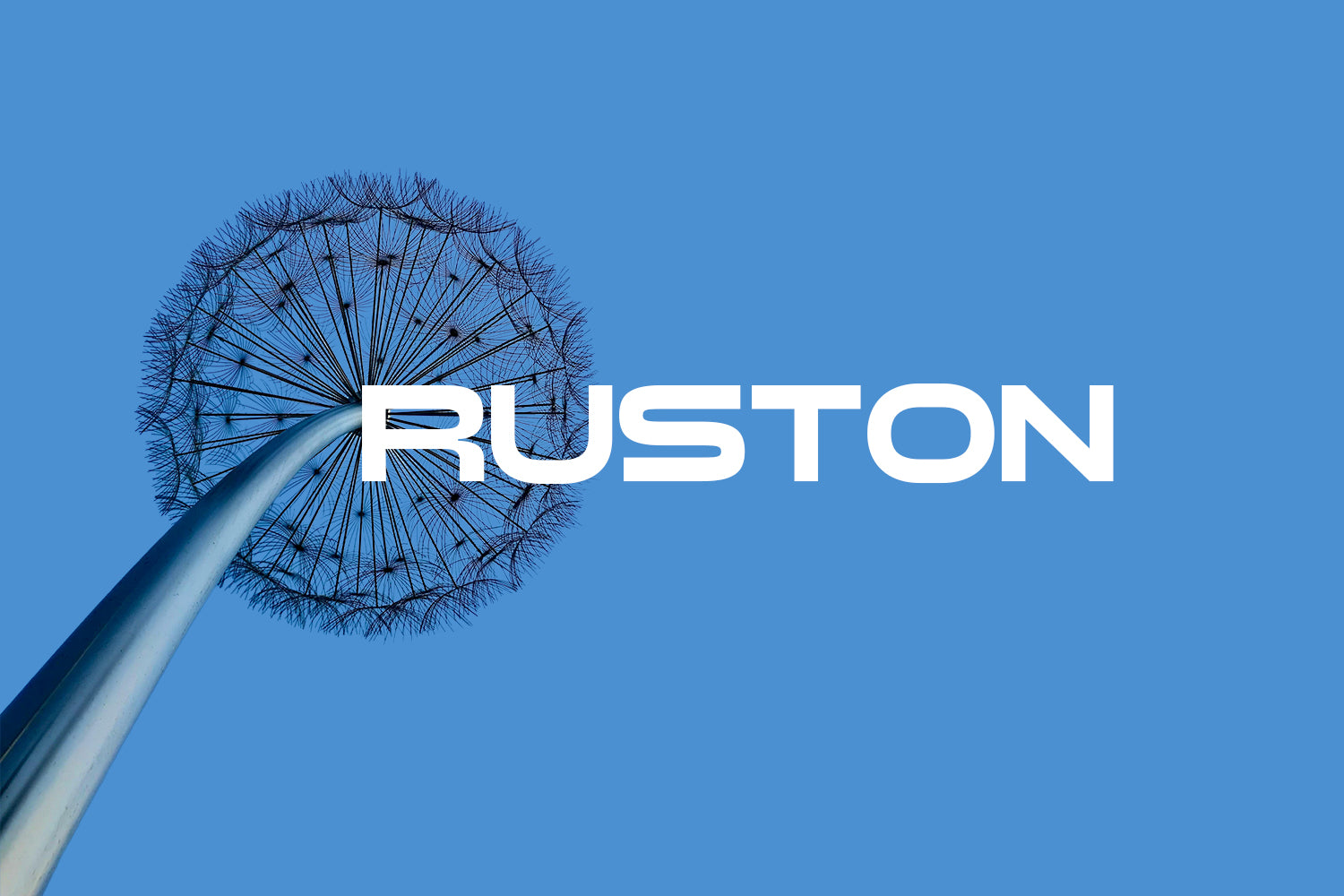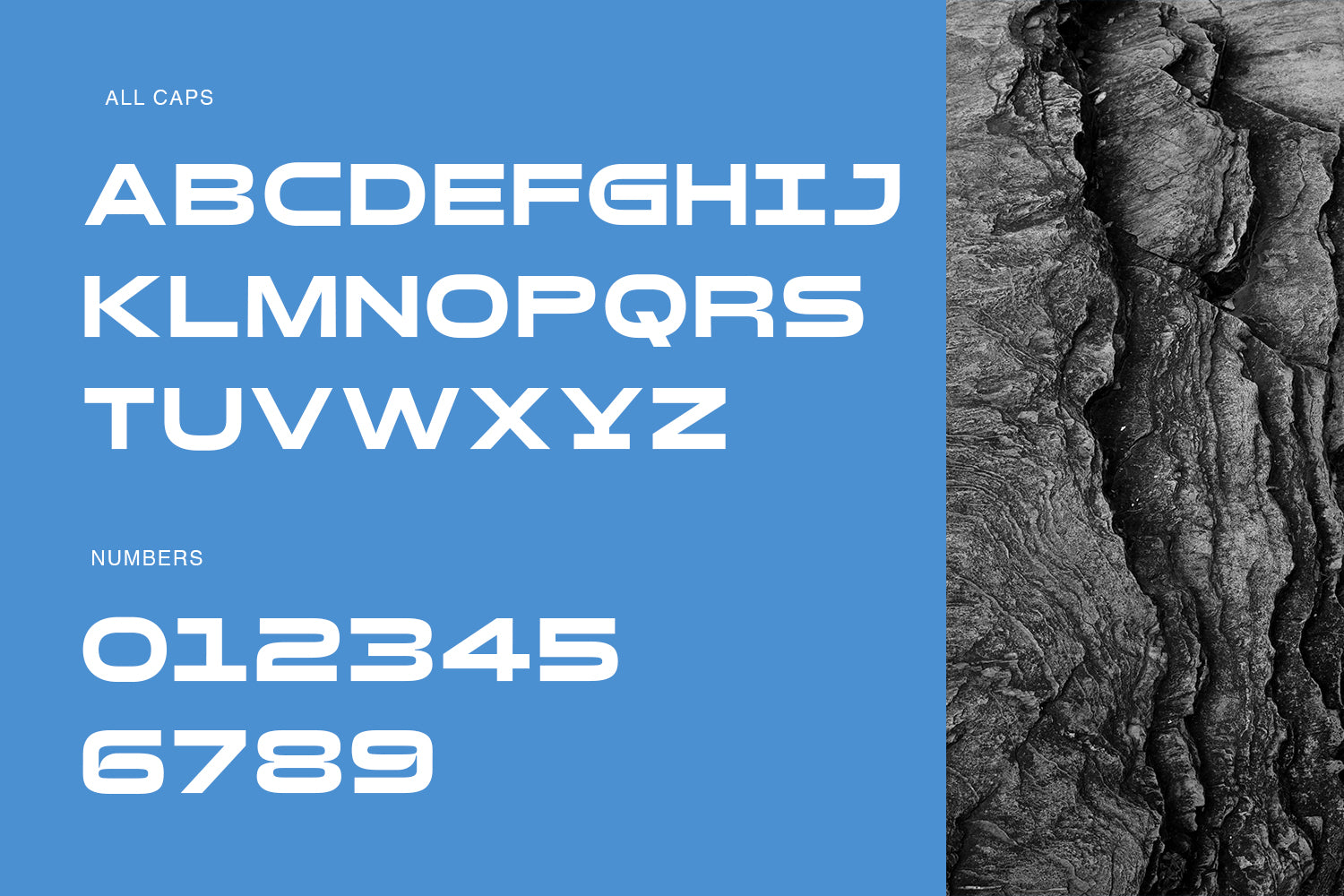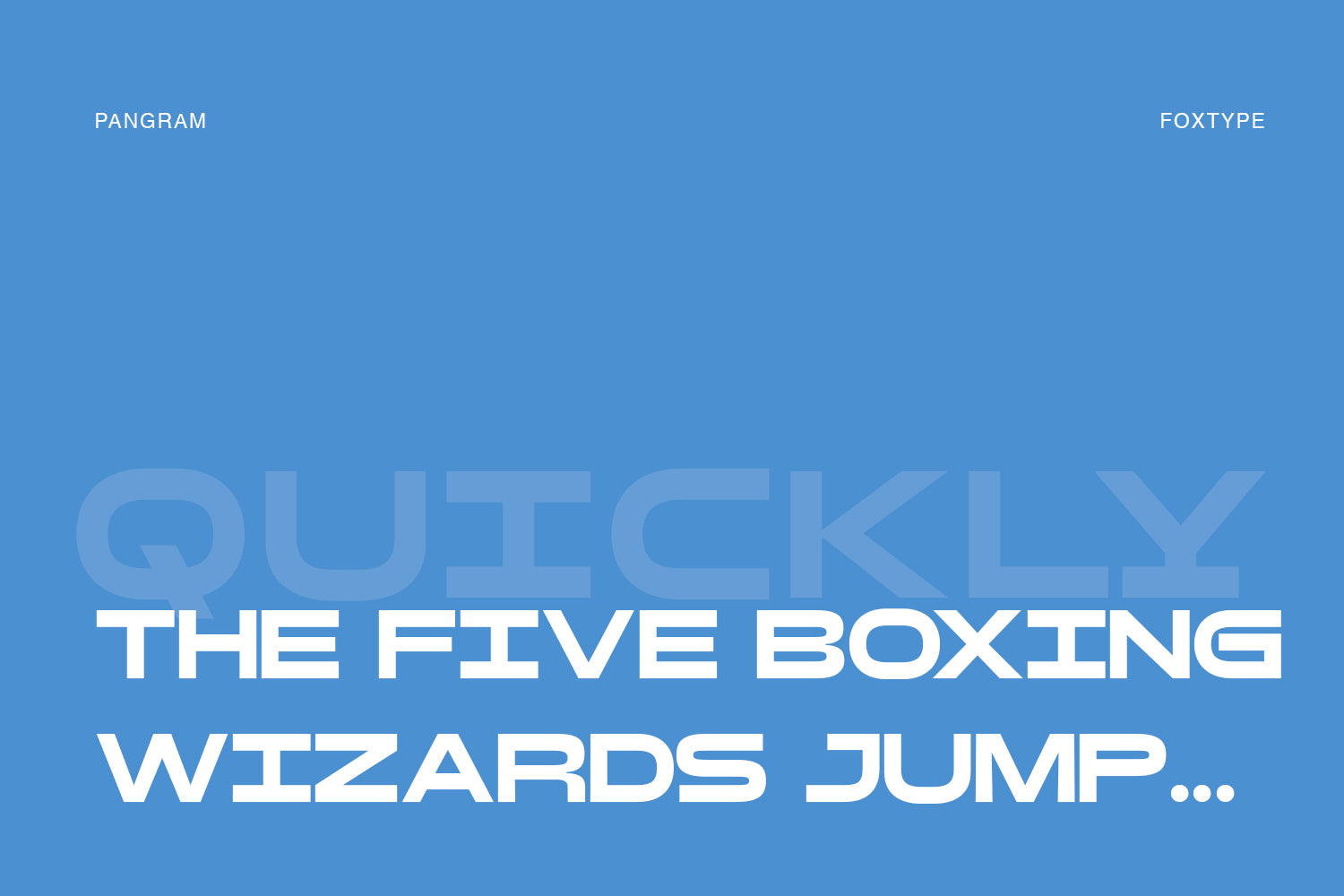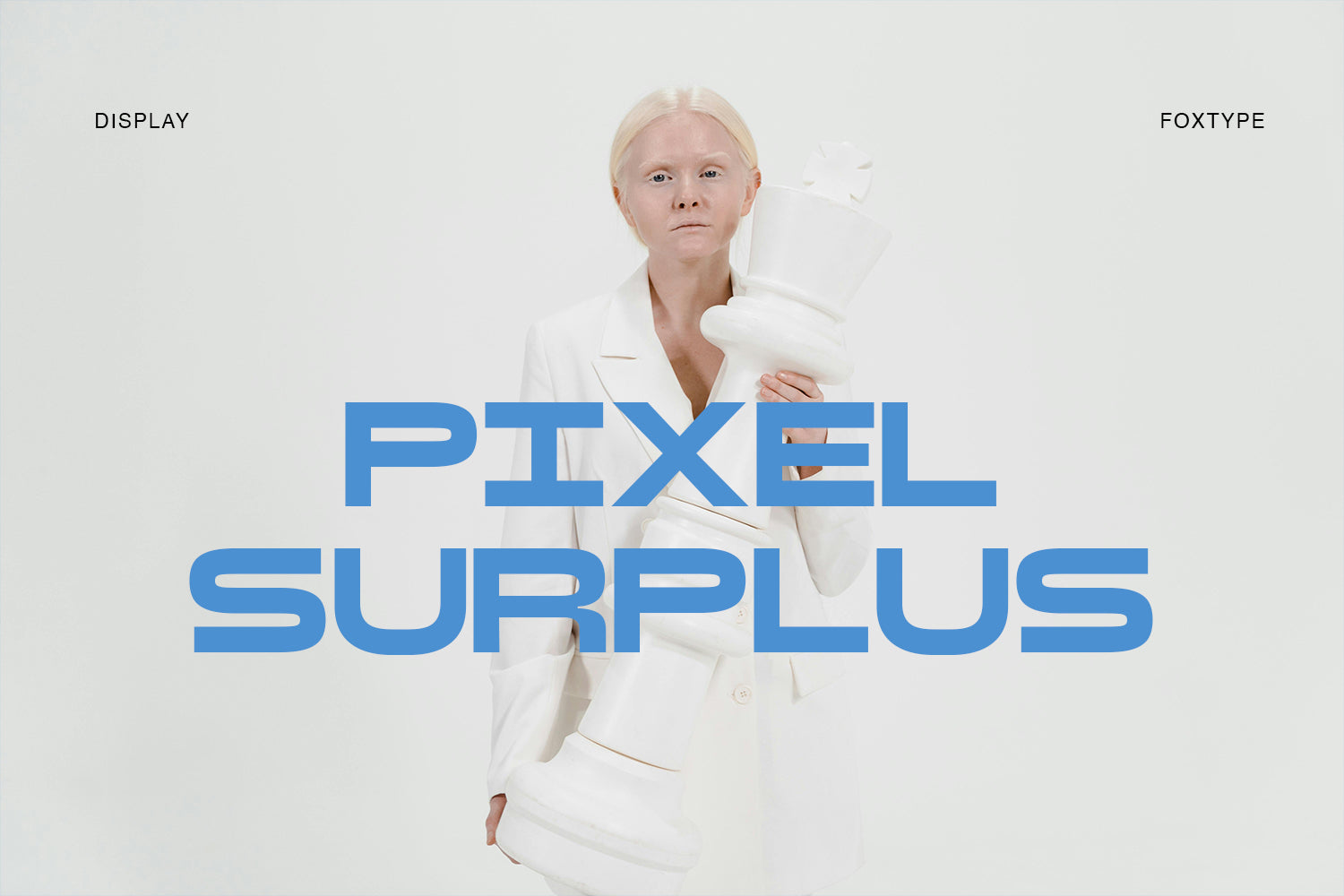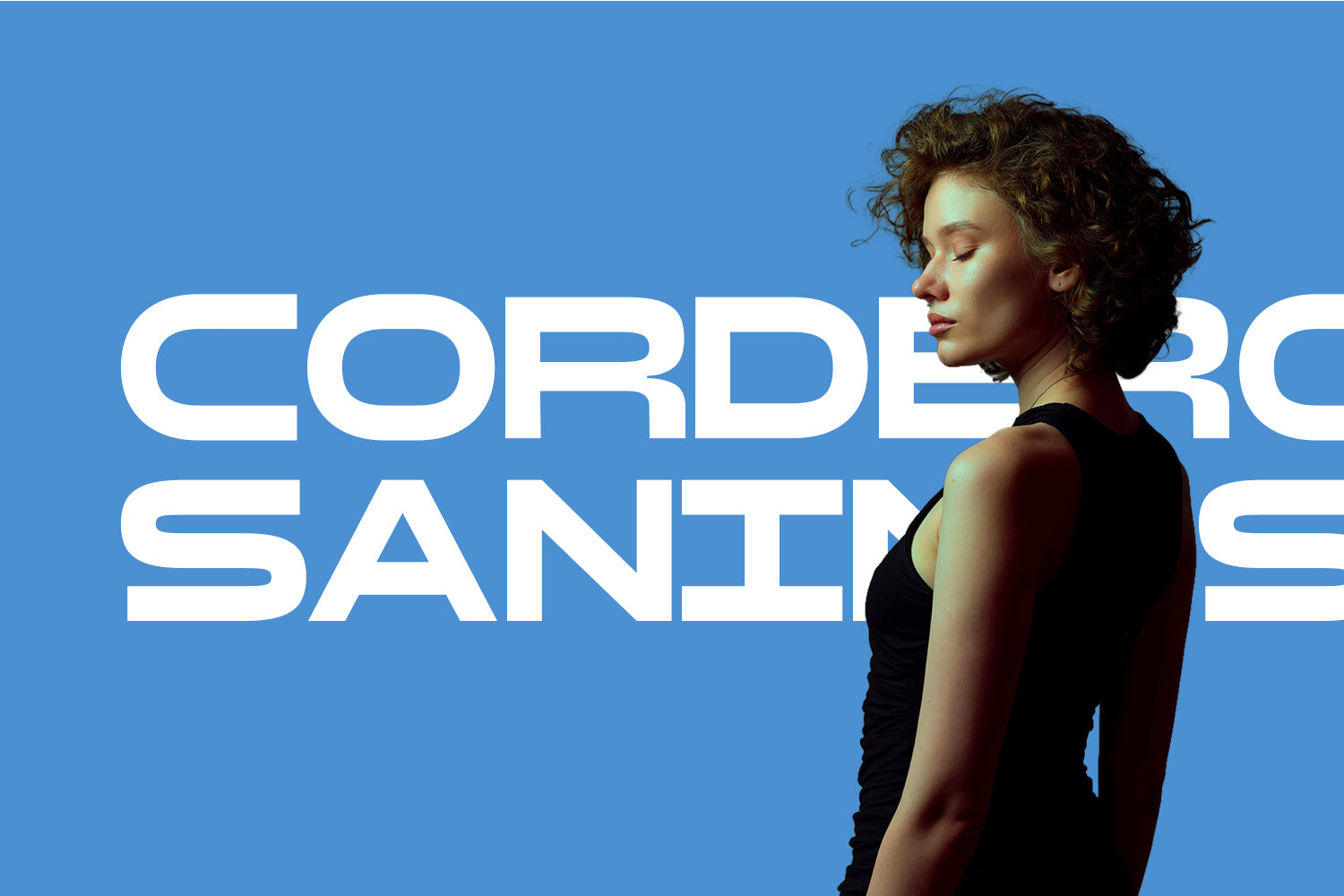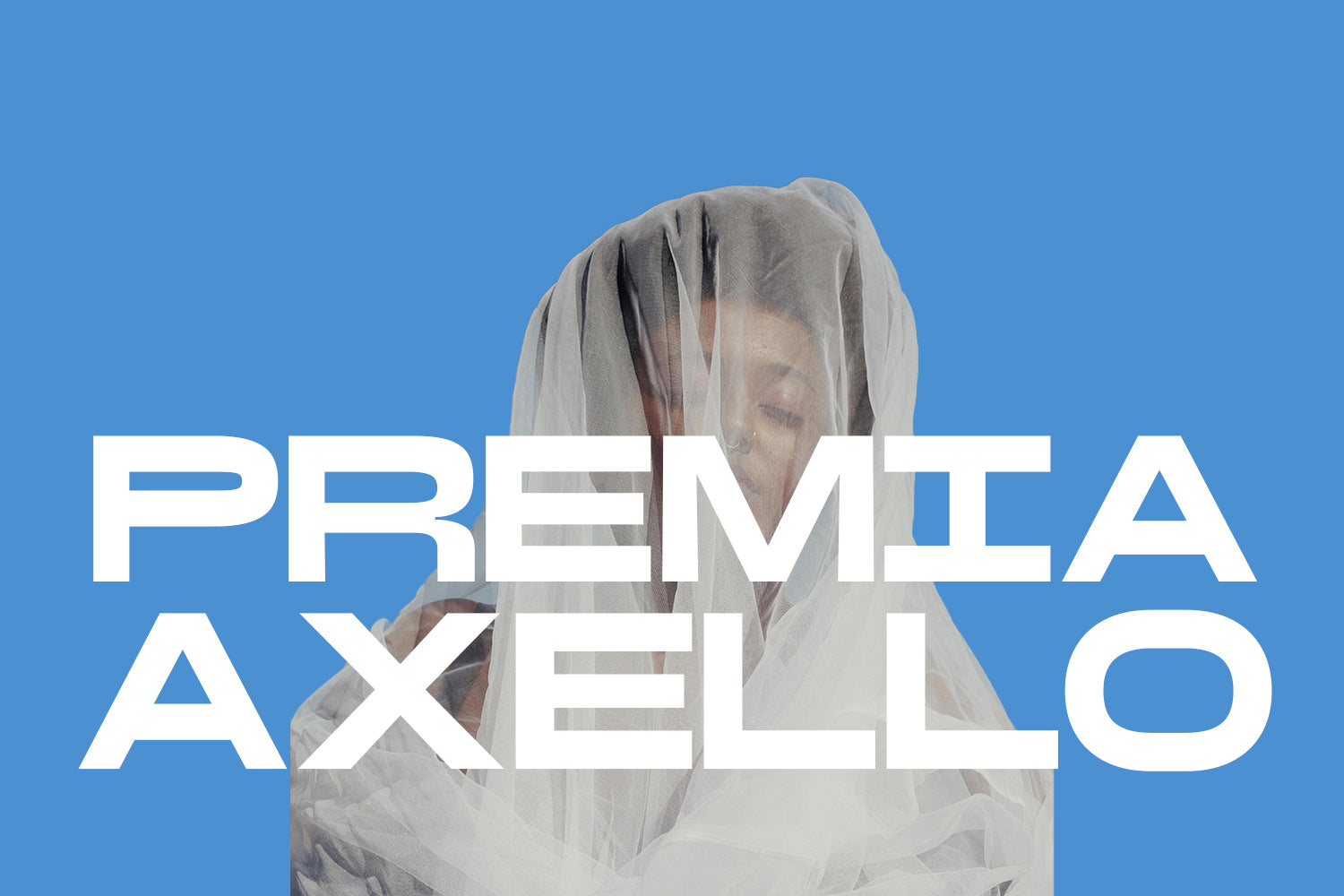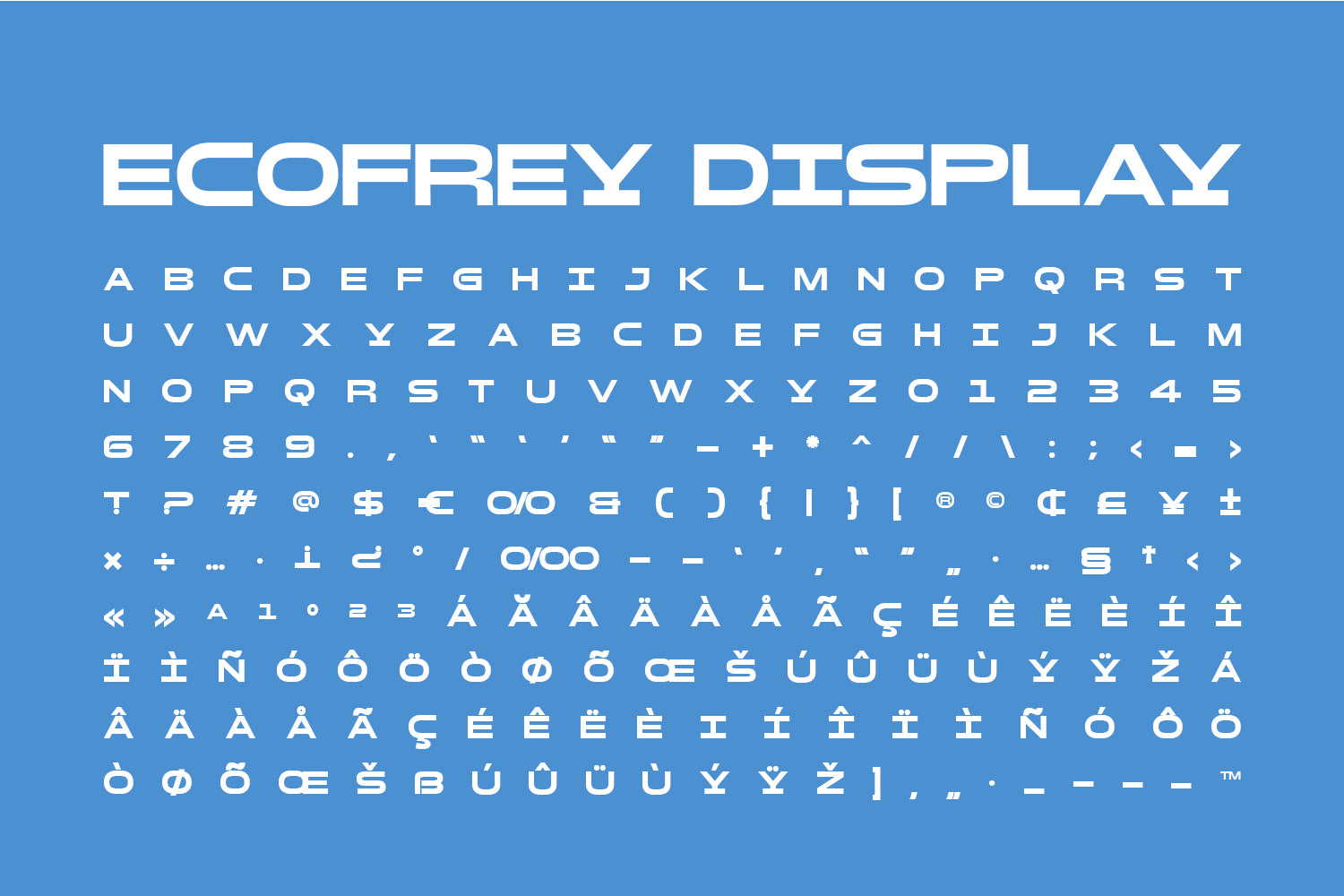
Auston Display
Auston is a bold, modern display typeface designed for strong visual impact. Created by Foxtype, this font features clean geometric shapes and powerful letterforms that make it perfect for contemporary branding and high-visibility designs.
With its futuristic structure and solid character spacing, Auston works beautifully for logos, headlines, posters, packaging, tech branding, gaming visuals, and modern advertising.
The font delivers a confident and stylish presence that helps your design stand out while remaining highly readable.
Perfect For
• Logo Design • Branding Projects • Posters & Headlines • Tech & Gaming Designs • Packaging Design • Website Headers • Social Media Graphics • Modern Advertising
Font Features
• Uppercase Characters • Numbers & Punctuation • Bold Modern Style • Clean Geometric Shapes • Strong Display Look • Easy Readability
Auston is ideal for designers who want a powerful and modern font that instantly attracts attention.